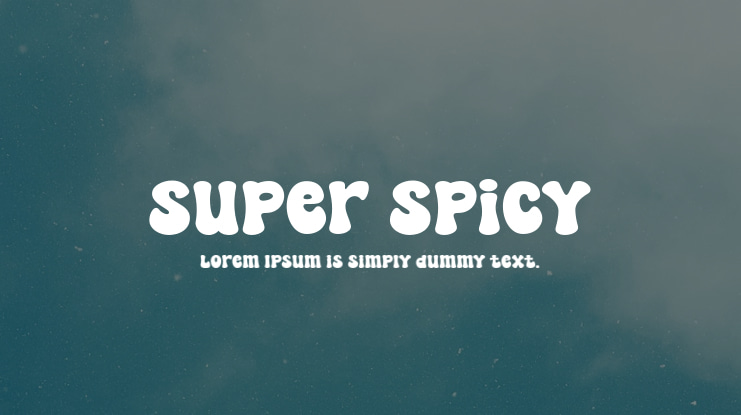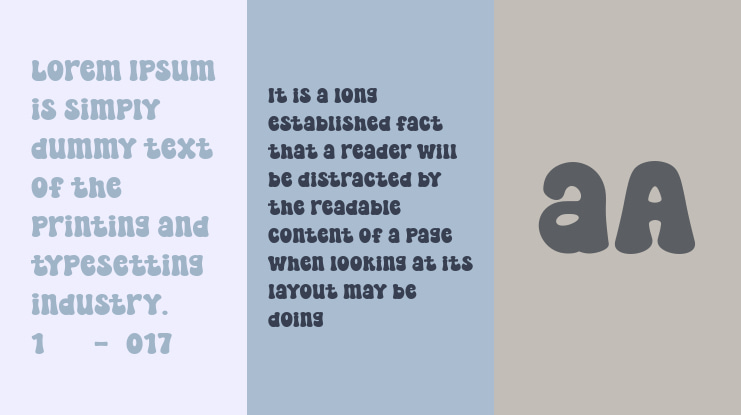
Super Spicy Font
Please note that this font is intended for personal use only. If you wish to use this font for commercial purposes, a commercial license must be purchased. You can obtain a commercial license at the following link: https://nhfonts.etsy.com/listing/1627858998/super-spicy-fontSuper. Super Spicy is a font that goes beyond being bold - it bursts with vibrant energy and retro-inspired design. With its classic letterforms and a hint of quirky charm, it's a flavor explosion for the eyes.
Super Spicy font preview